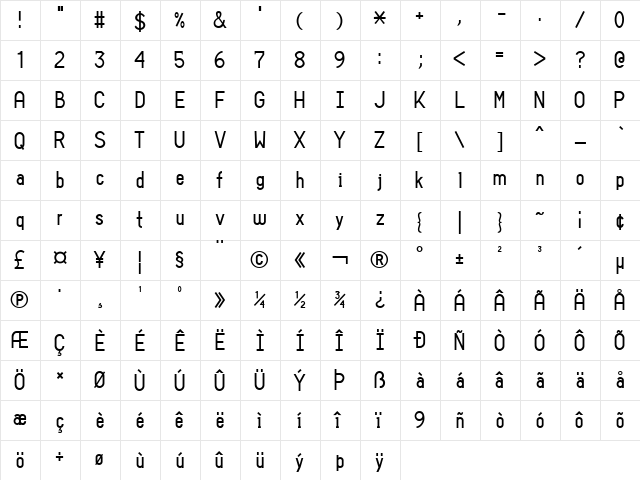
Sans I Am Regular
Design Context for Sans I Am Typeface
Sans I Am offers clean, dependable letterforms without strong stylistic allegiance, making it a practical choice for designers who need flexibility.